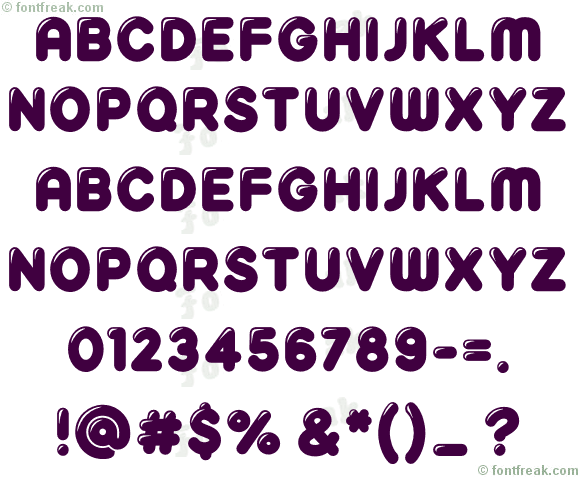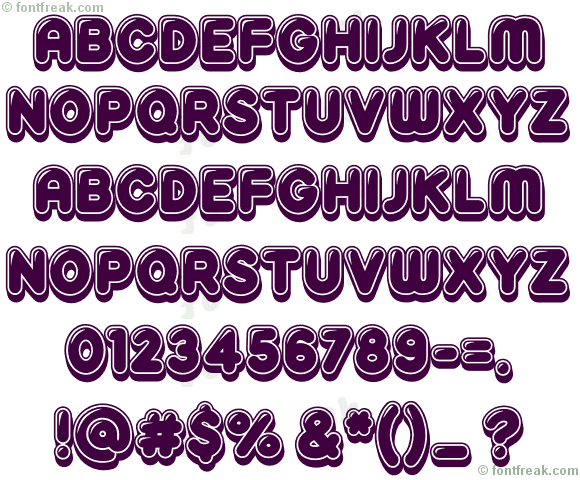
Reglisse-Fill
About Reglisse-Fill
Reglisse-Fill, designed by Youssef Habchi, is a striking display font that exudes a playful yet modern aesthetic. This sans-serif typeface features bold, rounded letterforms that create a sense of warmth and approachability. The stroke weight is consistent throughout, giving it a uniform appearance that enhances legibility while maintaining a whimsical charm. The spacing between characters is meticulously balanced, allowing for easy readability, making it suitable for various applications. The decorative elements in Reglisse-Fill include subtle curves and a filled-in design, which add depth and personality to the text.
This font is ideal for a variety of creative projects. It shines in contexts such as eye-catching movie posters, where its bold presence can draw attention. Additionally, the Reglisse-Fill font is perfect for playful restaurant menus, adding a fun flair that complements casual dining experiences. Graphic designers can utilize it for vibrant branding materials, ensuring that logos and promotional content stand out. It also works wonderfully for invitations, such as birthday parties or celebrations, where a cheerful and inviting tone is desired.
What sets Reglisse-Fill apart is its unique blend of playfulness and professionalism. It stands out in a crowded font market by providing a versatile option that can elevate any design. Whether you're crafting a bold statement or a subtle invitation, the Reglisse-Fill font free download opens up a world of creative possibilities.